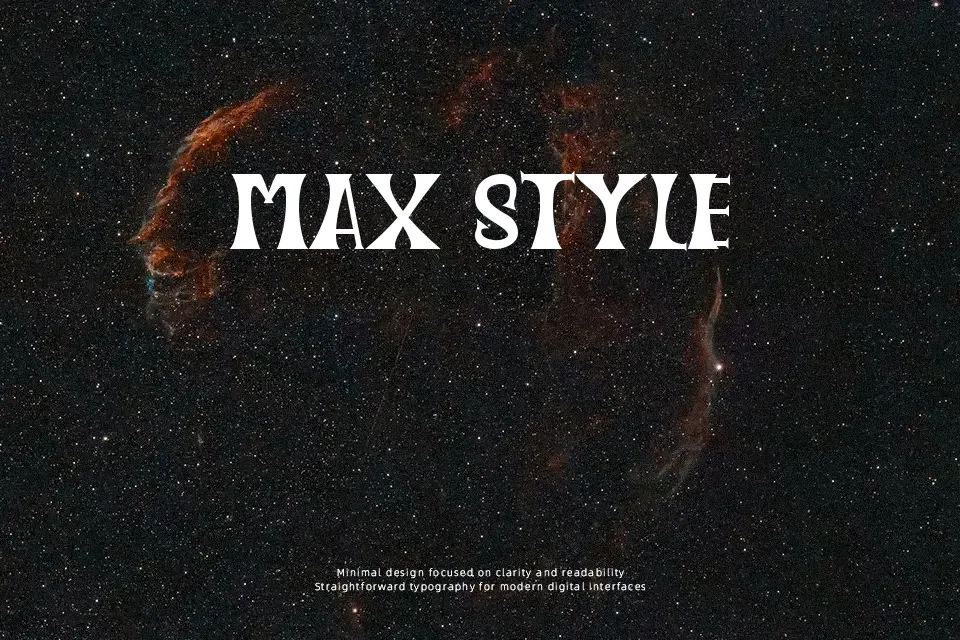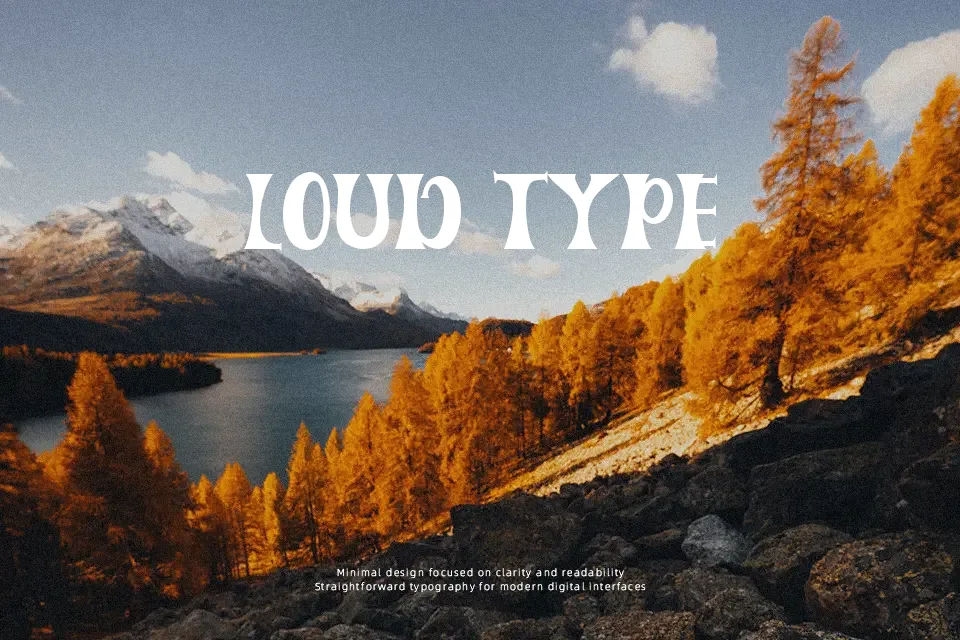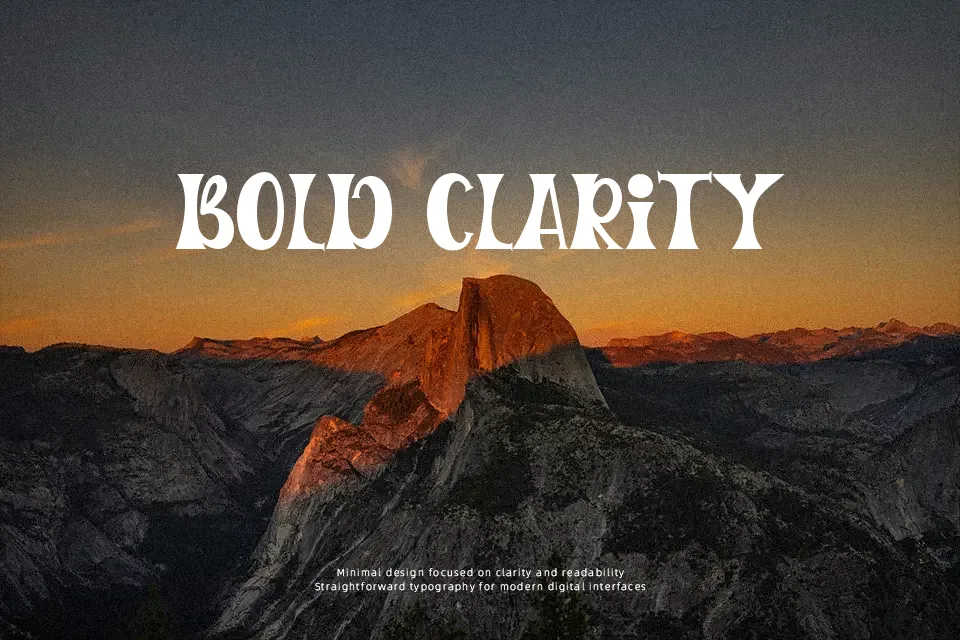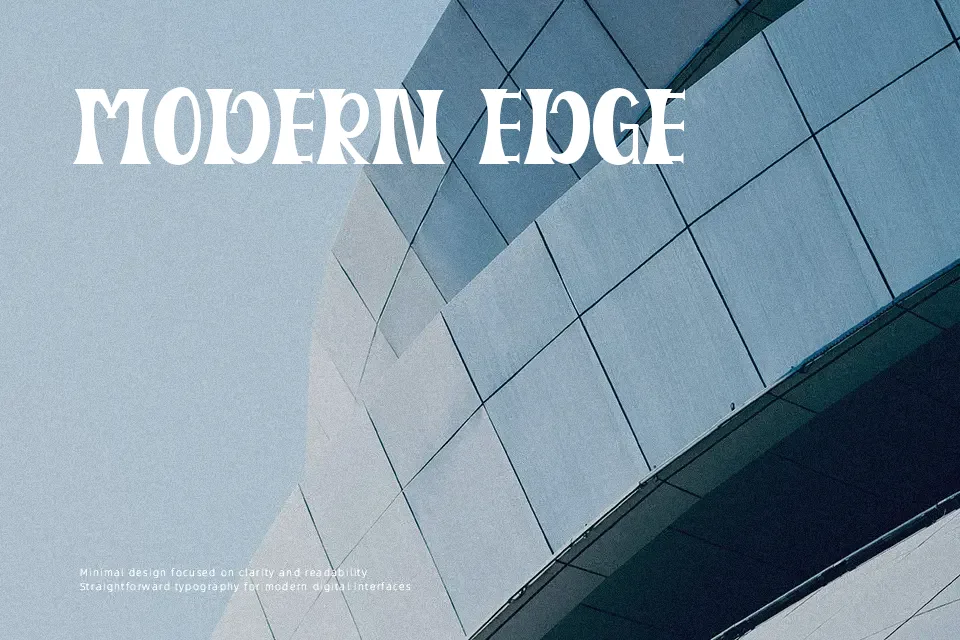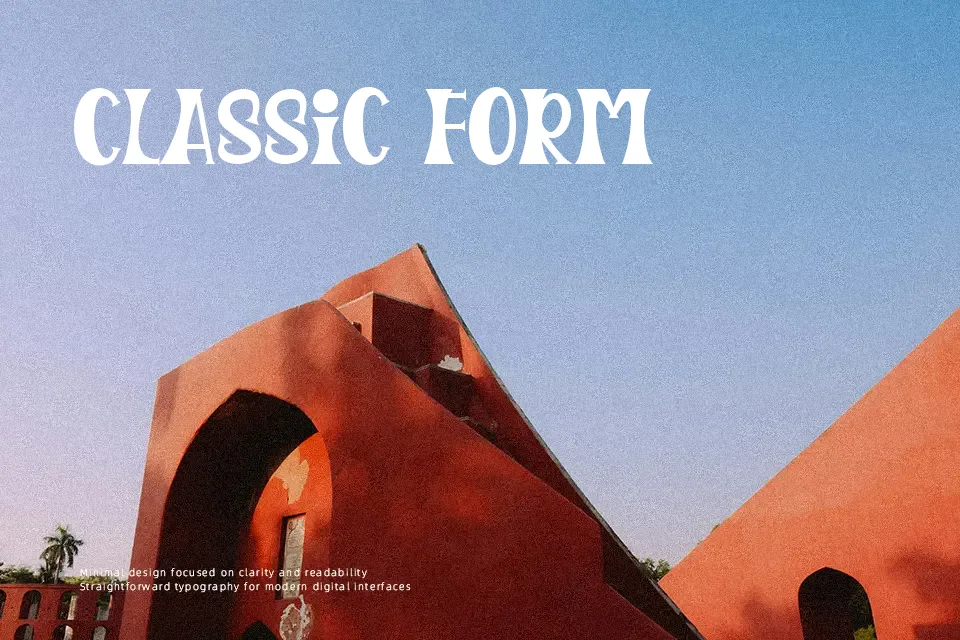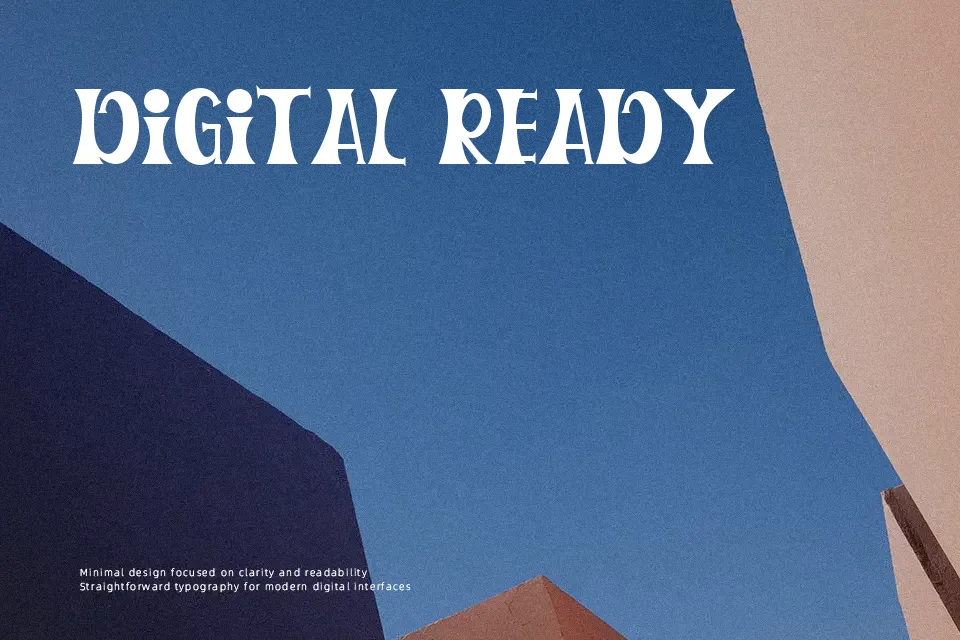
Black Mouse Font
Designed by Letterafa Studio
Black Mouse Font, crafted by Letterafa Studio, is a bold display typeface that captures attention with its high-contrast strokes and tightly packed letter spacing. Its structure leans into a groovy, retro-inspired aesthetic while maintaining clean, modern curves. The overall impression is undeniably decorative and casual, bringing a funky, playful energy to any layout. This typeface shines when applied to large-scale focal points like vintage music festival posters, striking apparel designs, or quirky merchandise packaging. However, its heavy, stylized letterforms become difficult to decipher at smaller sizes. Consequently, it struggles significantly as body text or within dense editorial layouts. Compared to traditional sans-serif options, Black Mouse prioritizes an exaggerated personality over strict legibility.
– Retro-inspired music event posters
– Quirky merchandise packaging designs
– Eye-catching streetwear apparel graphics
– Dense editorial body paragraphs
– Corporate or financial documentation
– Complex digital UI environments
Perfect for fashion, headline, and music, with a bold and decorative style.